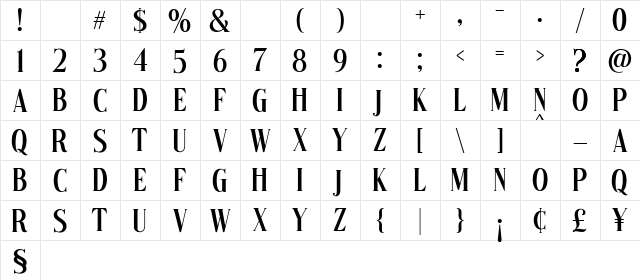
Arastin Std FREE DEMO Regular
Design Context for Arastin Std FREE DEMO Typeface
Arastin Std FREE DEMO offers clean, dependable letterforms without strong stylistic allegiance, making it a practical choice for designers who need flexibility.
Pro Tip: Use Arastin Std FREE DEMO in both headline and body roles to test its range before committing to a single application.